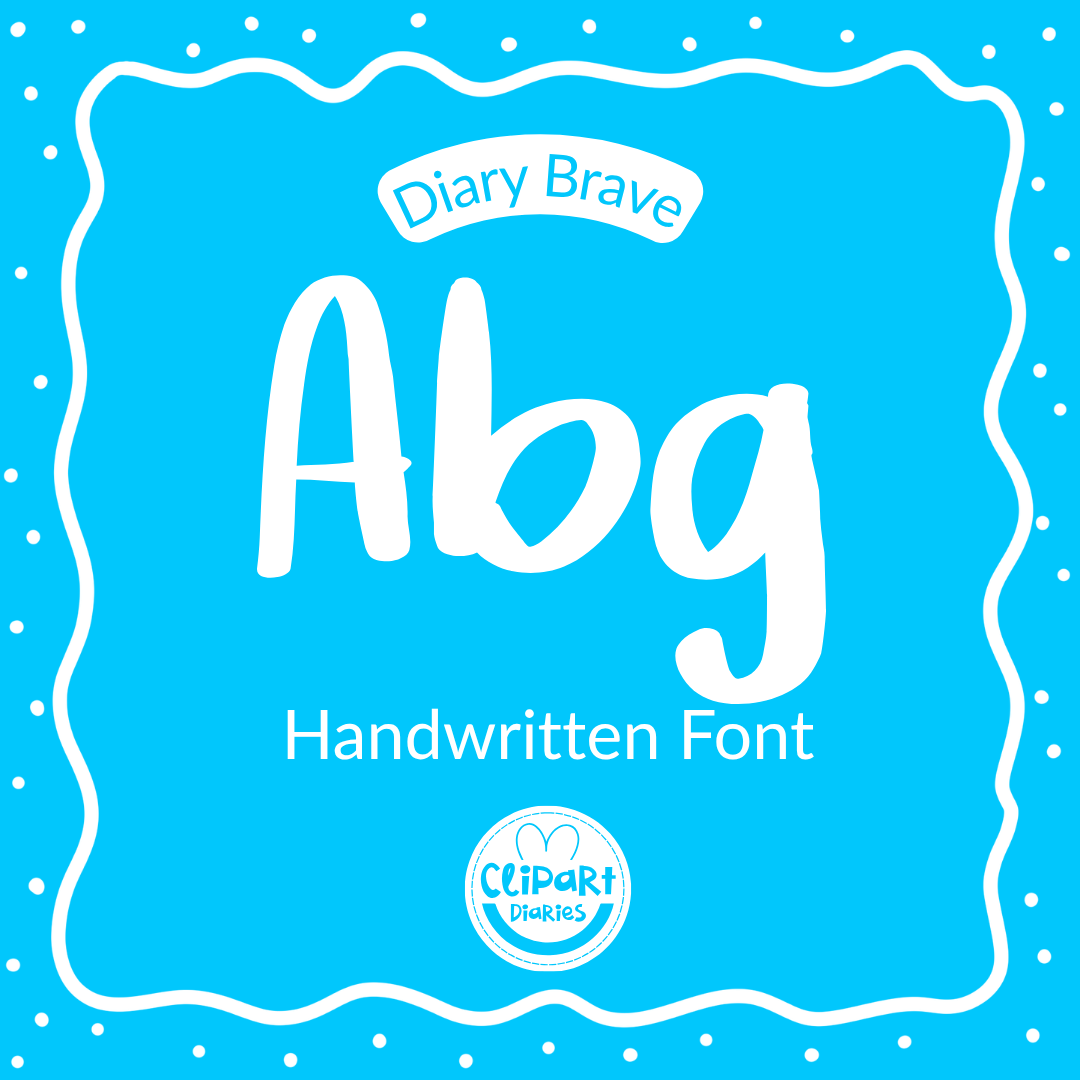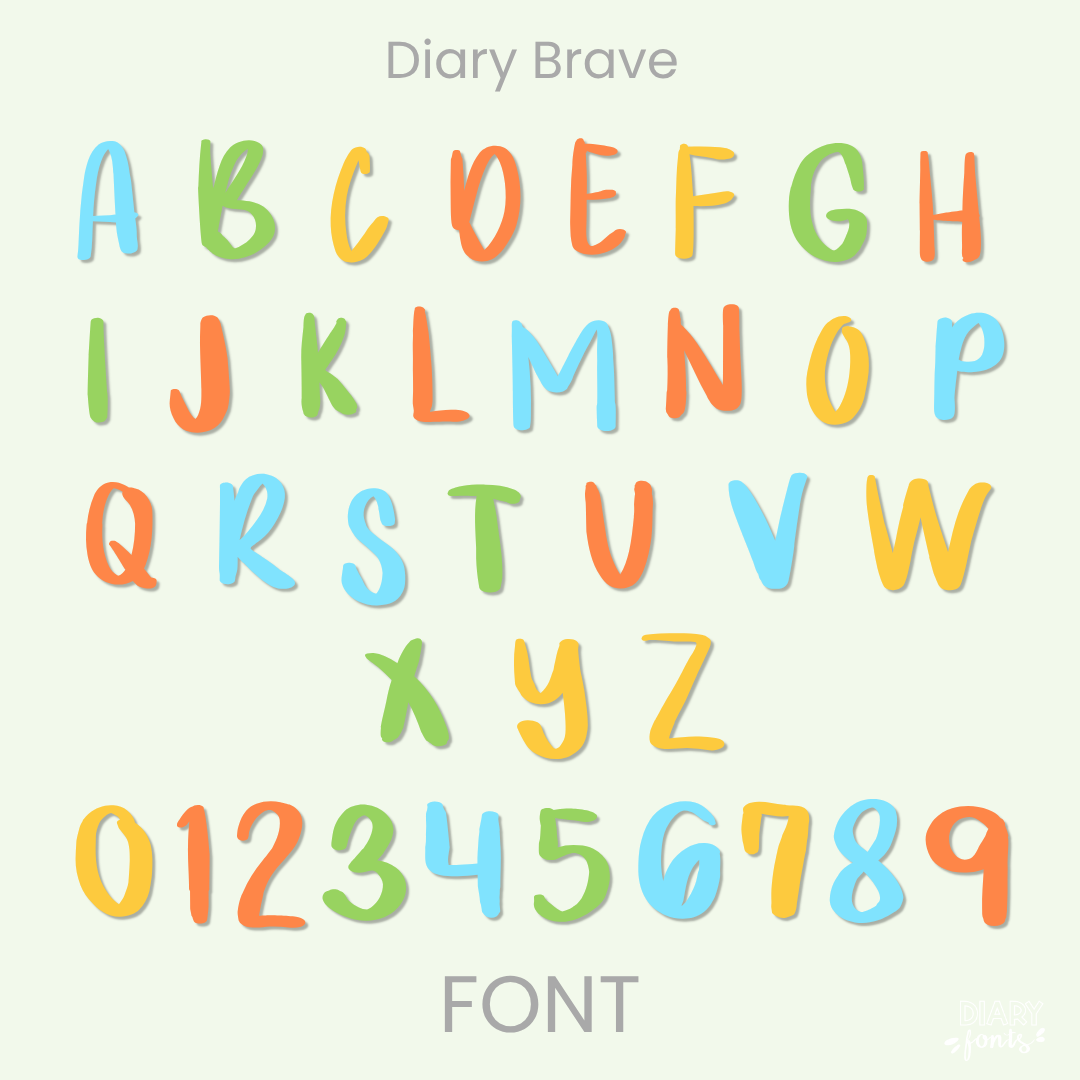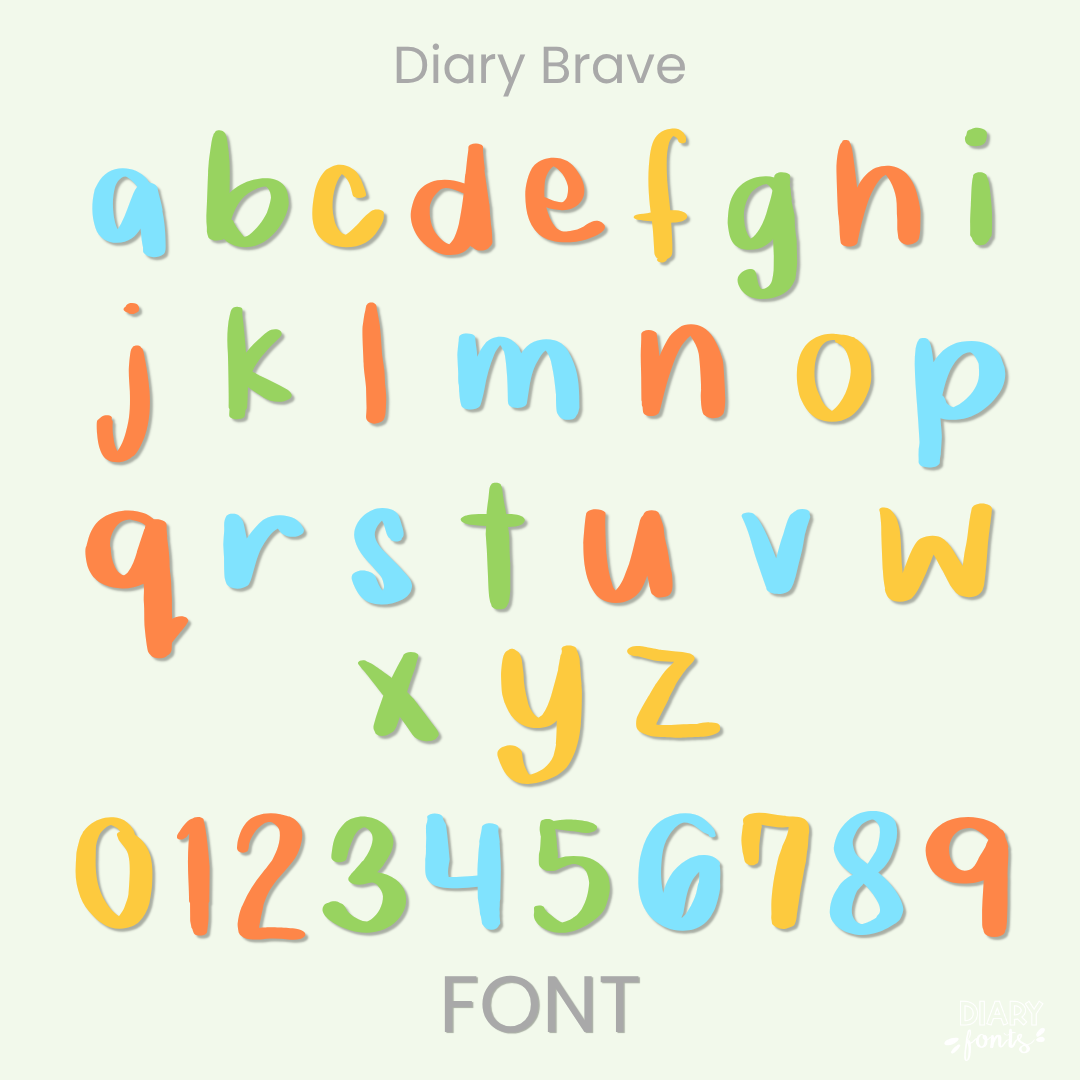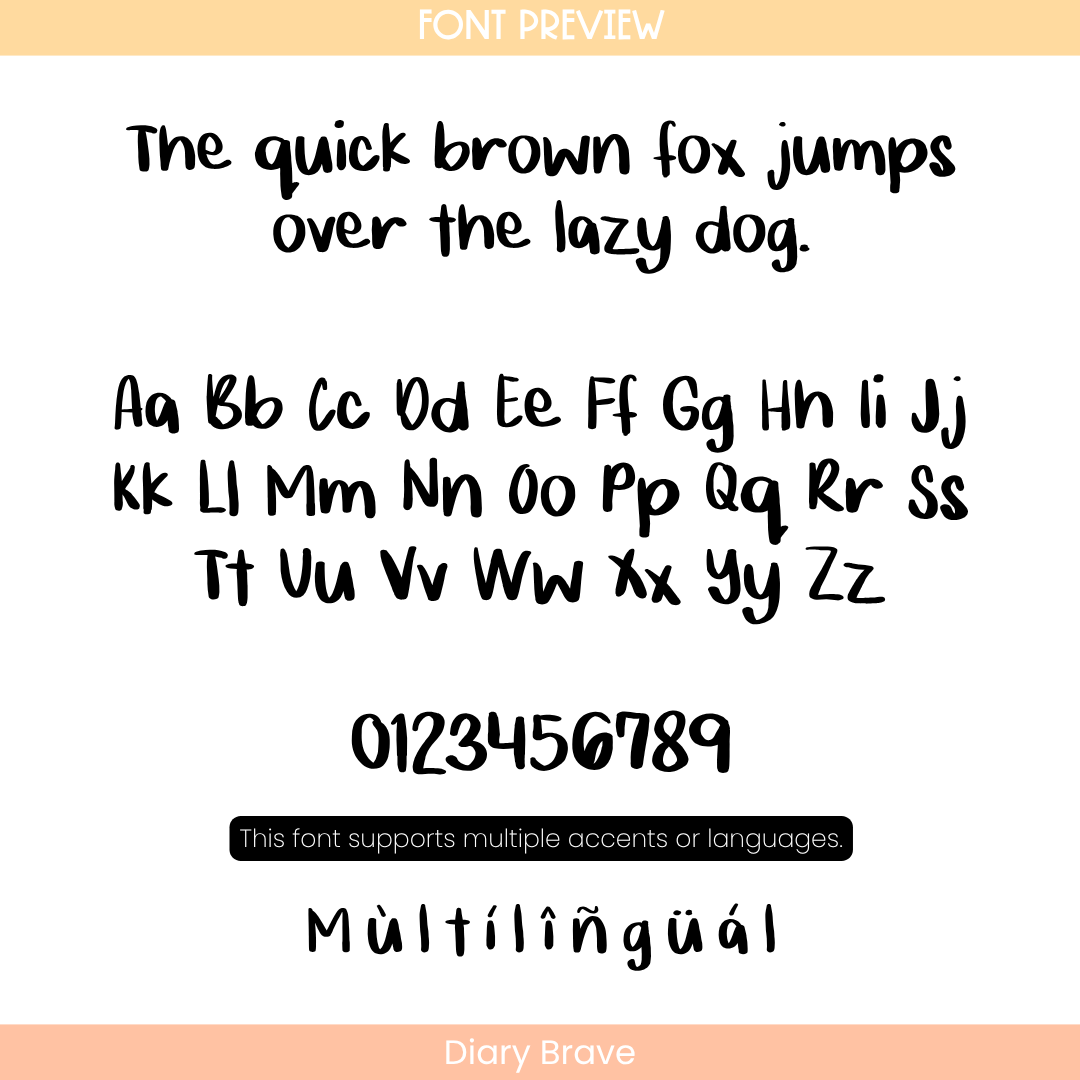
If you need a font that stands out without losing that hand-drawn feel, Diary Brave is a great choice. It features thick, solid strokes that make it easy to read from a distance, which is perfect for big headers, printable signs, and primary classroom resources. It includes a full set of uppercase and lowercase letters, numbers, and all the accents you need for multiple languages. It’s ready to use right away in Canva, MS Office, and Adobe Apps, and it works great on the iPad with GoodNotes and Procreate. Whether you’re making motivational posters or daily worksheets, this font gives you a clean, bold look that works for both personal and commercial projects.